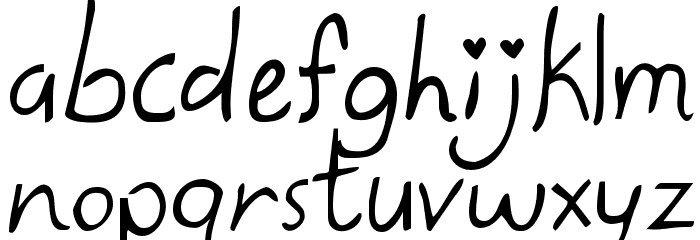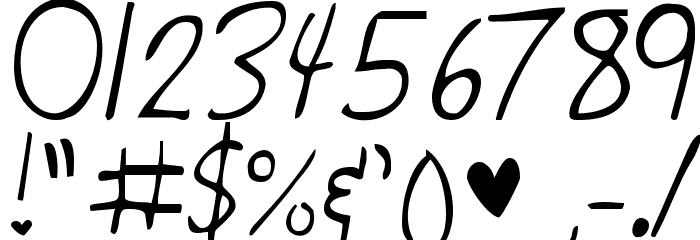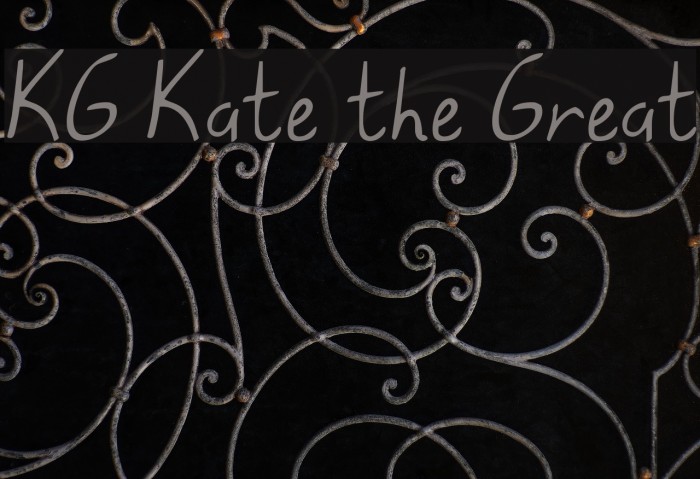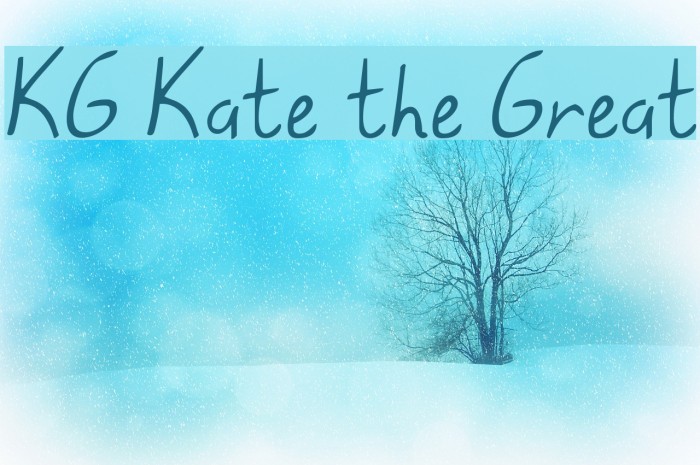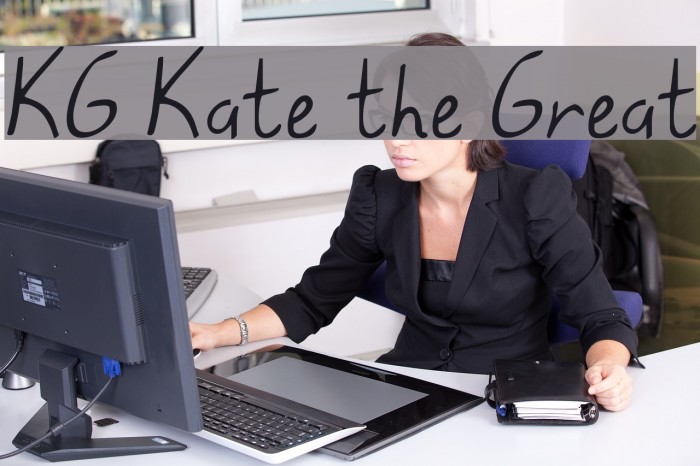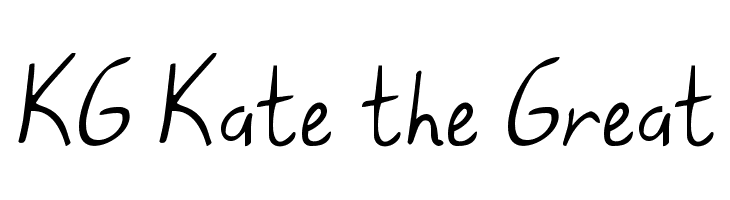
KG Kate the Great Font
This font features a playful and whimsical handwritten style, characterized by its smooth, flowing lines and slightly irregular shapes. The uppercase letters are tall and narrow, with a slight slant that adds a dynamic feel. Lowercase letters are rounded and feature charming embellishments, such as heart-shaped dots on the 'i' and 'j'. The numerals are consistent with the overall style, maintaining the playful and informal aesthetic. Special characters are creatively designed, adding to the font's unique personality. The overall appearance is casual and friendly, making it suitable for projects that require a personal touch.
A playful handwritten font with whimsical, flowing lines and charming details.
- Proposed Projects: Ideal for greeting cards, children's books, playful branding, and personal projects.
- Overall Style: Casual, Playful
- Use Case: Headlines, Informal text, Creative projects